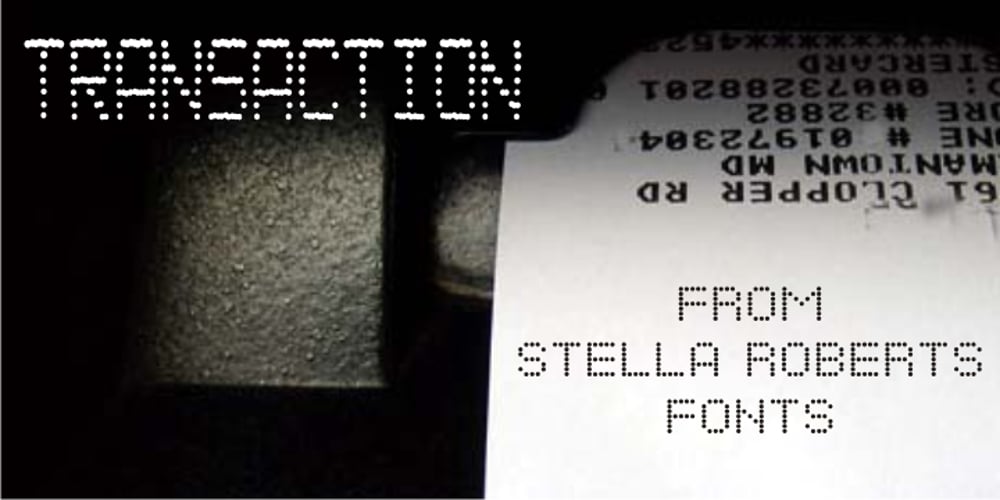
Transaction SRF
Transaction SRF font
Transaction SRF Font Family was designed by published by Stella Roberts Fonts. Transaction SRF contains 1 styles and family package options. Leave it to Ray Larabie to come up with an interesting typeface that looks as if it were printed straight out a store’s register. Stella Roberts Fonts presents Transaction SRF, the perfect font for emulating cash register receipts and adding machine tapes. The net profits from my font sales help defer medical expenses for my siblings, who both suffer with Cystic Fibrosis and diabetes. Thank you.